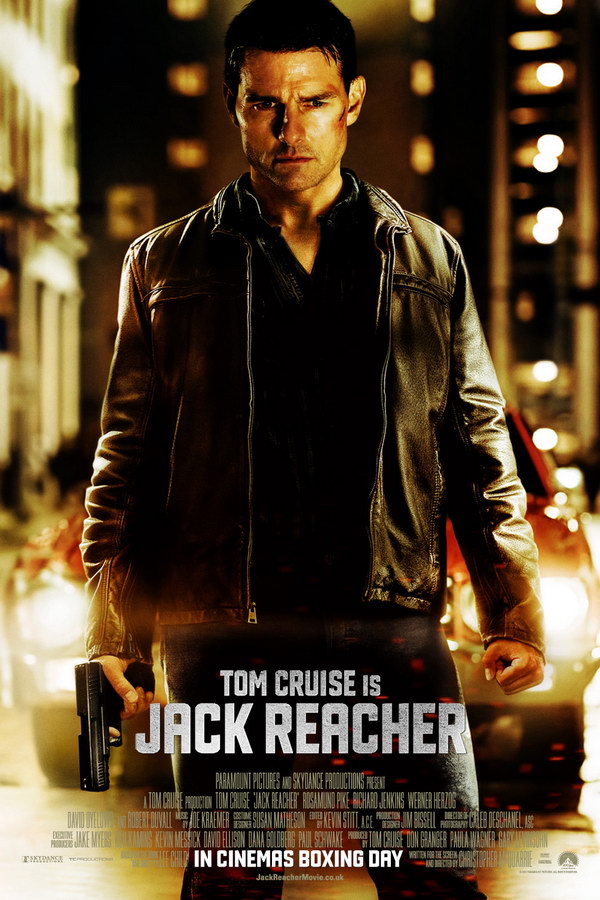
Jack Reacher Font
ActionJack Reacher is a 2012 action thriller film directed by Christopher McQuarrie, featuring Tom Cruise as the titular character, an ex-military investigator who uncovers a conspiracy while solving a sniper case.
The movie poster's title font closely resembles TX Manifesto, a square sans font created by Michael Kohnke. It is a commercial font with additional details available here.